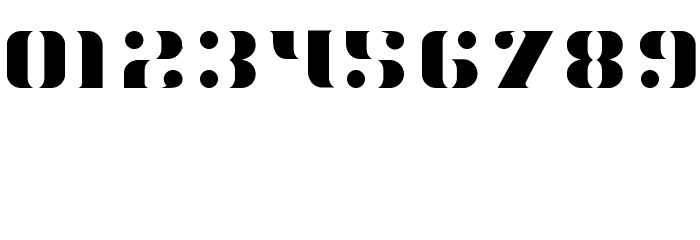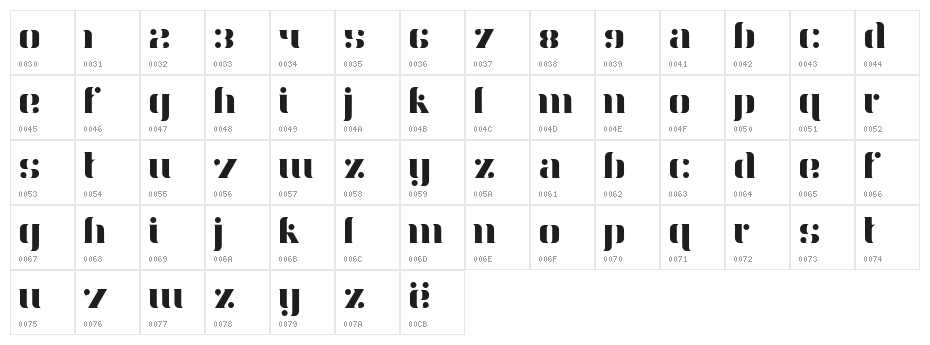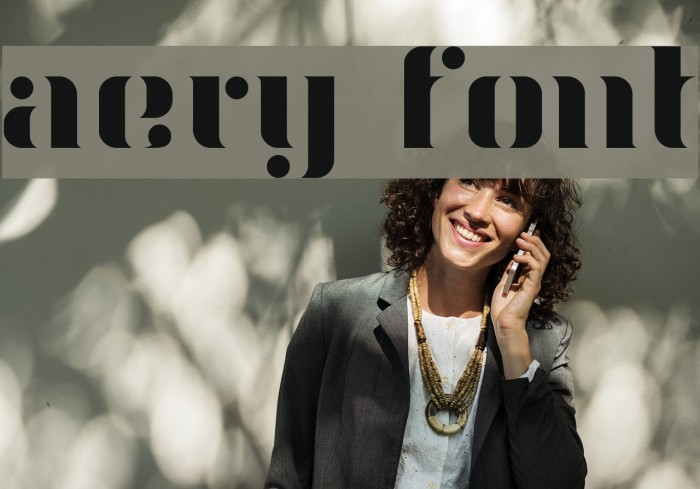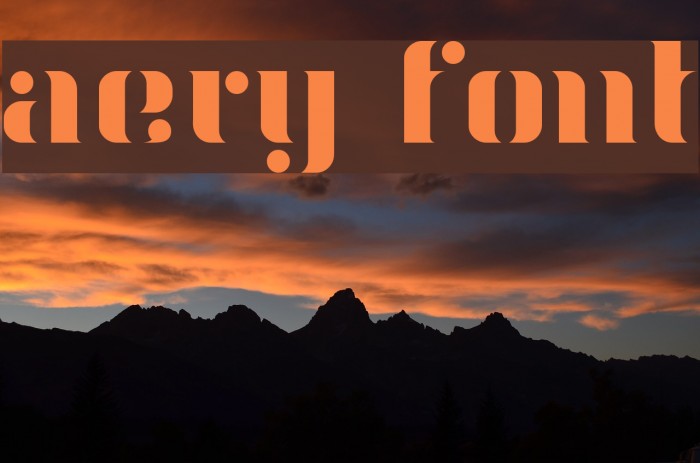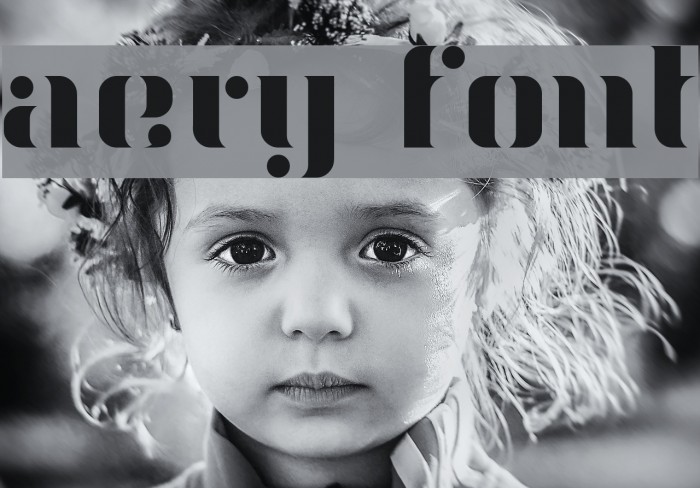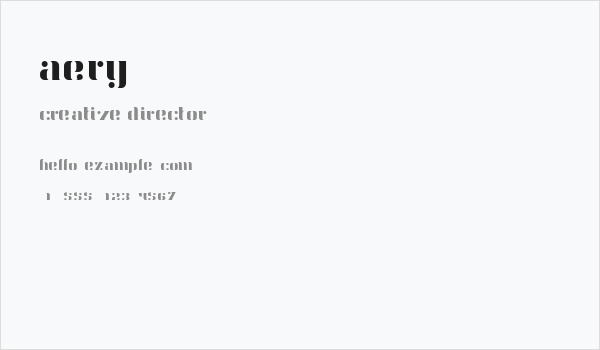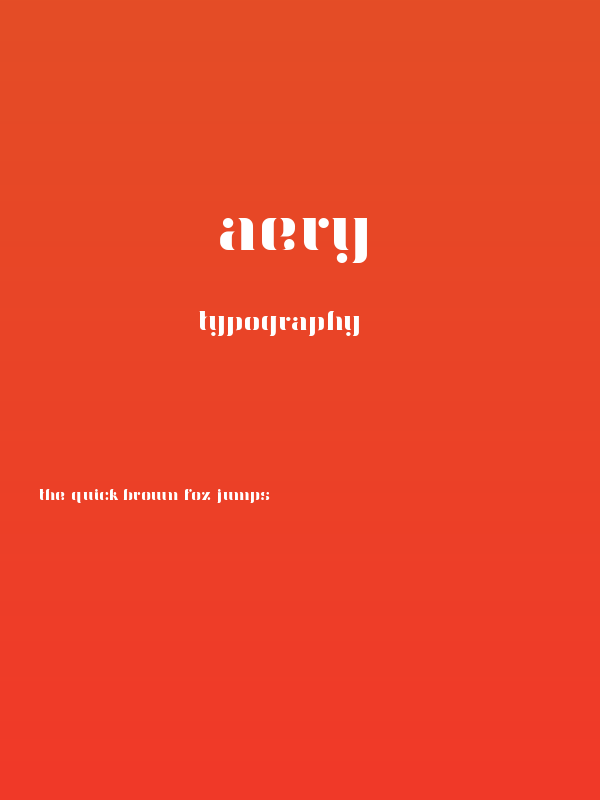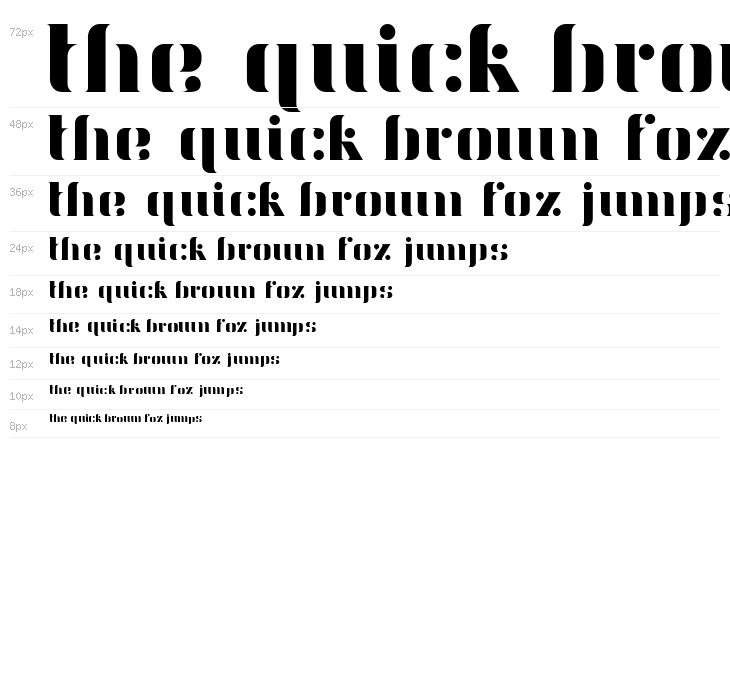
Aery Font
Aery Description
This font features a bold and striking design with a modern and geometric aesthetic. The characters are constructed with thick, uniform strokes, creating a strong visual impact. The rounded edges and circular cutouts within the letters add a unique and playful touch, making it stand out in any design. The uppercase and lowercase letters maintain a consistent style, with the same boldness and geometric shapes. The numerals follow the same design principles, ensuring a cohesive look across all characters. The font's distinct style makes it ideal for projects that require a bold and modern statement.
| Proposed Projects | Ideal for branding, posters, headlines, and modern graphic design projects. |